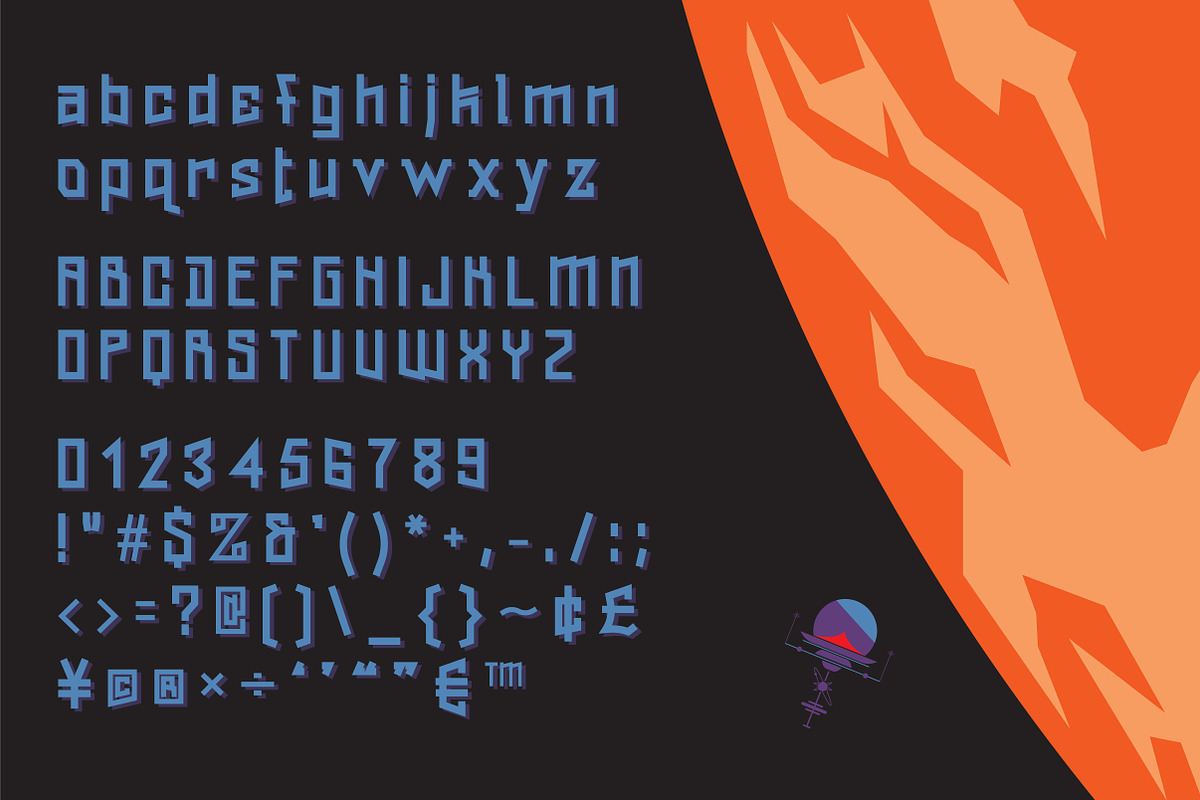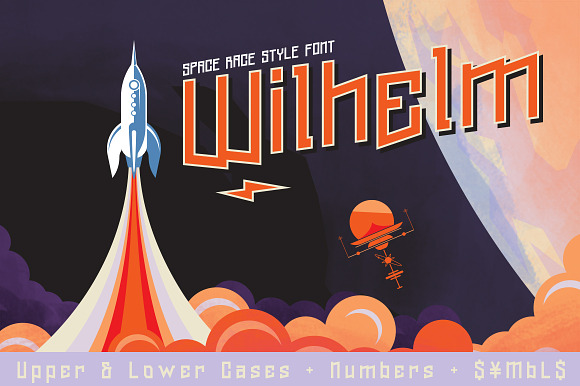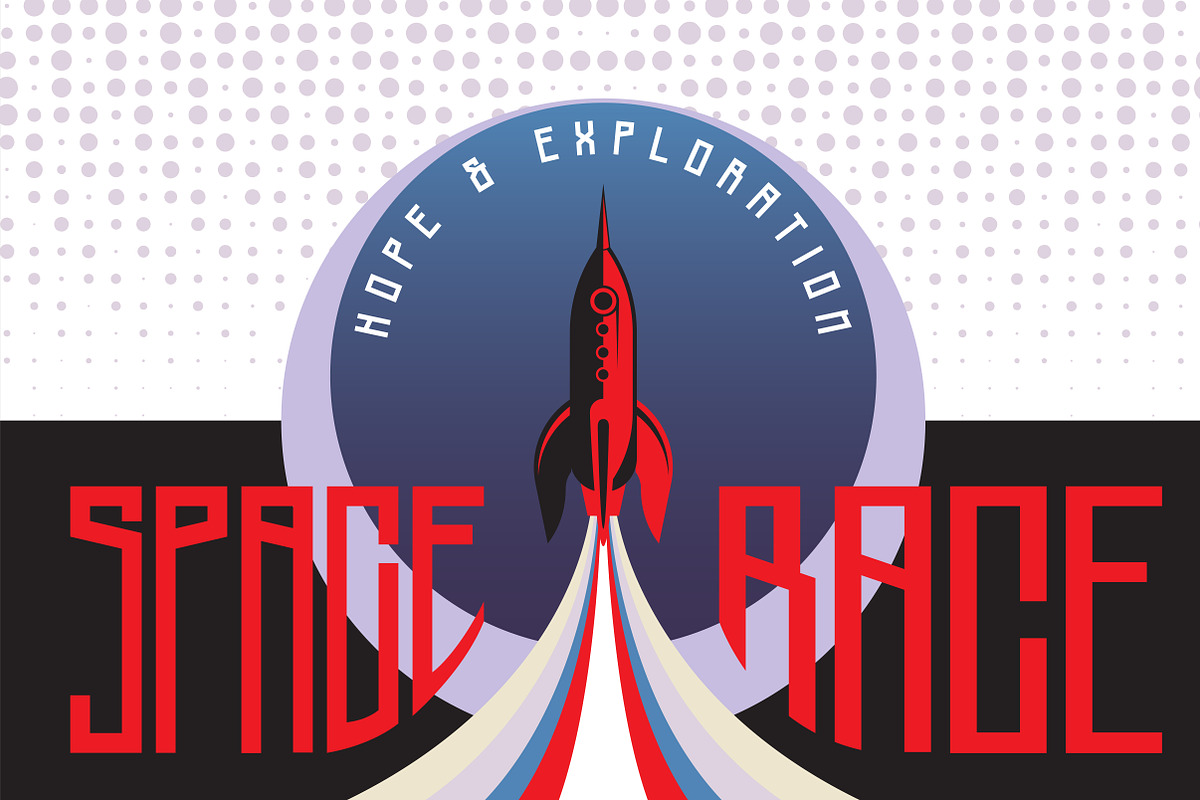
Wilhelm Font & Space Vectors
Wilhelm is a new font for a wide range of uses. From retro Soviet-style propaganda to a simple geometric yet aggressive logo, Wilhelm has got you covered. We hope you love it. Let us know what you think in the comments below.
Wilhelm comes with uppercase, lowercase, numerals, punctuations and is ideal for Logotype, Letterhead, Poster, Apparel Design, Label and etc.
- Wilhelm Regular